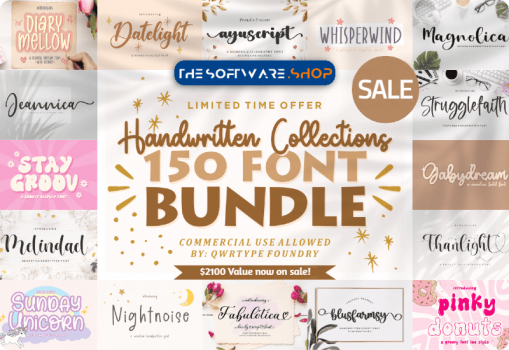
The Handwritten Collections Font Bundle is a bundle that includes 150 premium handwritten fonts by qwrtypefoundry. This bundle includes handwriting fonts, farmhouse fonts, cricut and silhouette fonts, beautiful cursive fonts, calligraphy fonts, and more!
- Pinky Donuts
- Farmhouse Greatness
- Stay Groov
- Jeannica
- Bellafela
- Lumilkys
- Gabydream
- Blisymind
- Honeyline
- Sunday Unicorn
- Datelight
- Unicorn Twister
- Strugglefaith
- Leafdream
- Whisperwind
- Jumkids Twilight
- Nightheart
- Mailhome
- Abigailside
- Enlightica
- Smileline
- Nightnoise
- Harmony Rainbow
- Yellowcean
- Silkyhearts
- Signatture Greating
- Wednesline
- Shalfolk
- Weddingfield
- Metallicfarms
- Smith Cyclops
- Jimstarline
- Sprinkle Delicious
- Ohmayblue
- Oakblush
- Magnolica
- Magicpearl
- Farmgarden
- Scripthome
- Farmstead
- Beingnice
- Leafydante
- Mochaberry
- Dibbles
- Shadefarms
- Spearmint
- Better Autumn
- Secret Caramel
- Blindlight
- Mistigralley
- Historical Magical
- Olipeach
- Refreshmind
- Quinolyne
- Goldytime
- Harmony Signature
- Bubble Peanut
- Daisilica
- Blue Elfira
- Hillgoldie
- Thanlight
- Donnabold
- Diary Mellow
- Happymoob
- Meanshine
- Synthilea
- Elmimore
- Legendday
- Smilemint
- Chickyplum
- Clothingside
- Magic Bread
- Bobbiewish
- Shortline
- Hicktoryna
- Megallion
- Wisebird
- Hello Soffie
- Aprillica
- Heartbold
- Boomer Smooch
- Meadgold
- Melindael
- Blystnutter
- Midmountte
- Sketchthiny
- Sugar Cookie
- Staylatte
- Hallow Spire
- Melodical
- Memonoglia
- Loopglasy
- Heartgrove
- Memorlyne
- Eallitapie
- Haventica
- Yellowchalk
- Matilda Calrysta
- Alysagirl
- Billion Cupcake
- Thatsfeed
- Pear Amigo
- Bouncy Blanket
- Fabulotica
- Christmasfest
- Bumblemilk
- Heartworld
- Demipeach
- Bloomi Almond
- Mochiffissa
- Berryline
- Hellophiy
- Moryscript
- Squashwill
- Mightsilly
- Peachbeary
- Glenetta
- Almondwild
- Blusfarmsy
- Bestfeeling
- Shelbymalkan
- Brittishfeel
- Fancywel
- Unclefarms
- Stalshine
- Symphonigraphy
- Millespring
- Ayuscript
- Le Journey
- Halfbritish
- Bailey Sidney
- Lovely Melany
- Jimscript
- Milanicay
- Janjitake
- Abiallyne
- Lemonice
- Marlyland
- Chromatical
- Vivacily
- Beasttica
- Marjolein
- Earhtroline
- Stainfishy
- Miramilly
- Pageberry
- Delightifull
- Holdywood
- Liquearth
- Algisttalleya
These hand-drawn typefaces are perfect for any design project that needs a little bit of personality and charm. You can use this font for anything from logos to wedding invitations or social media graphics , as well as fonts that are great to give a personal touch to your designs.